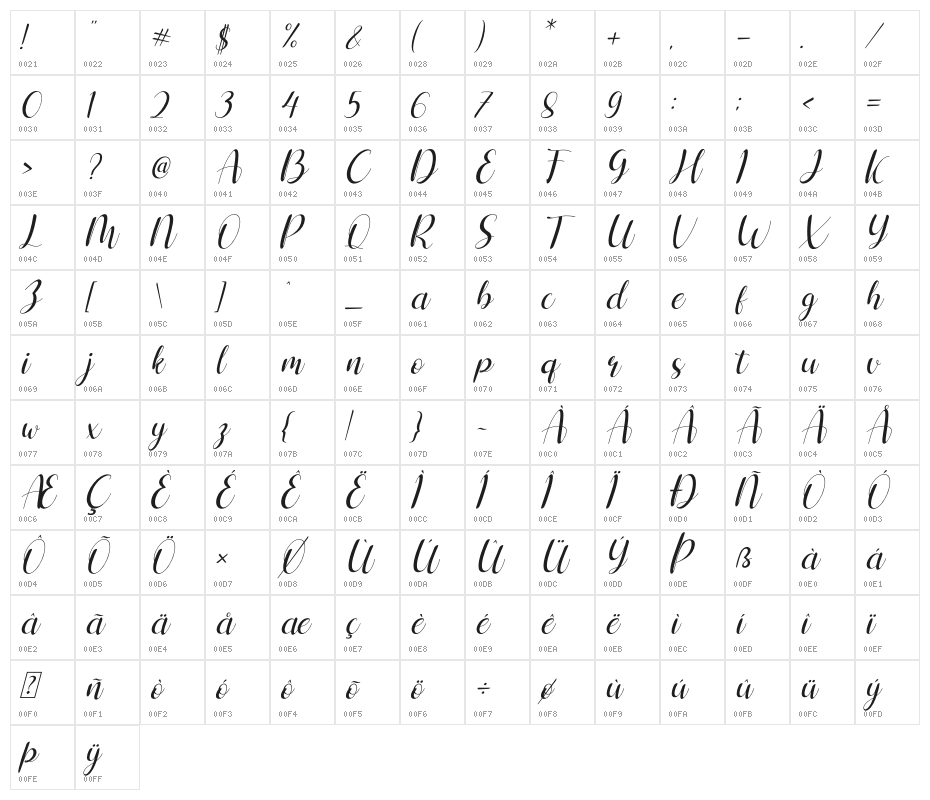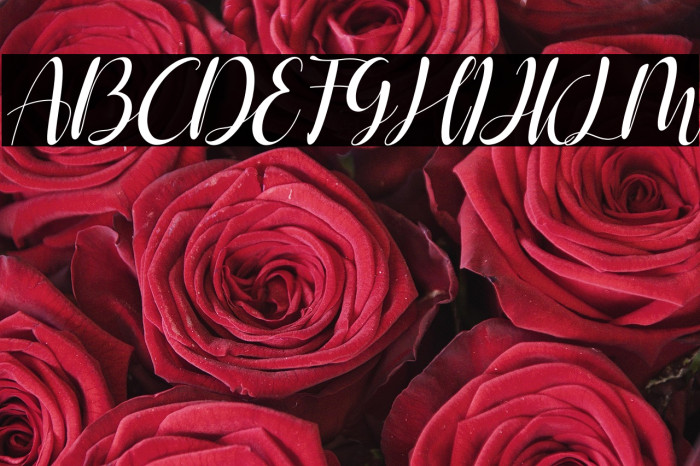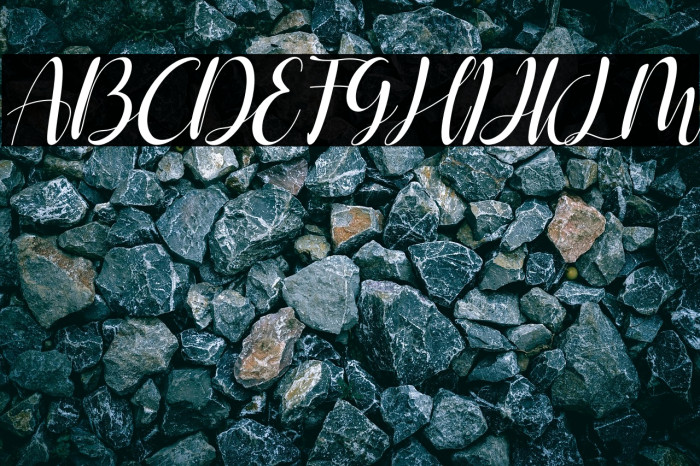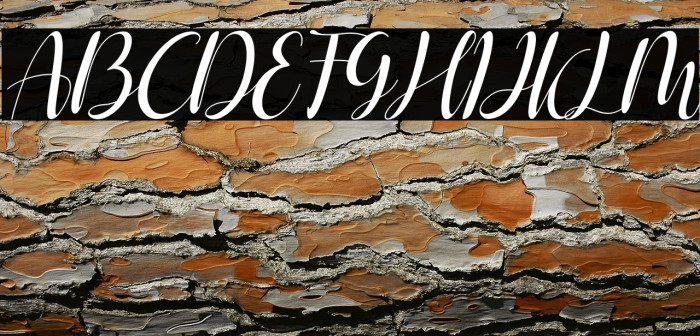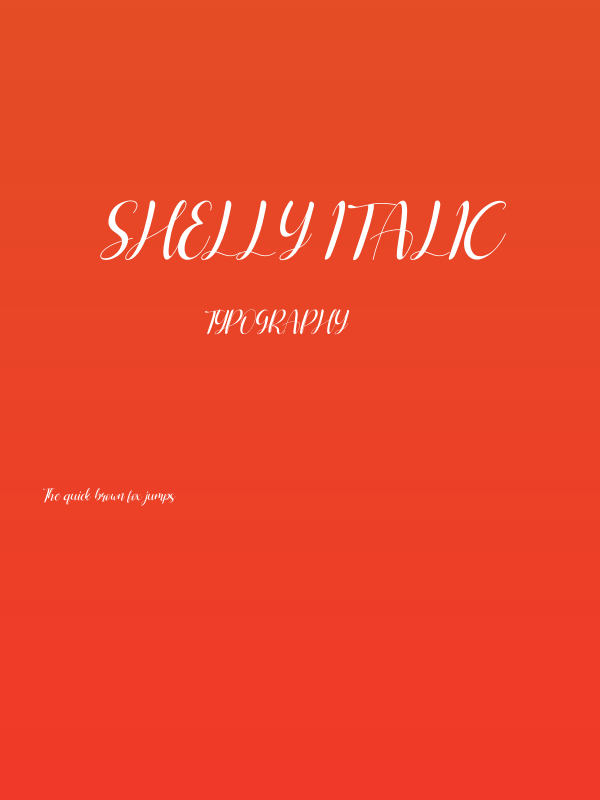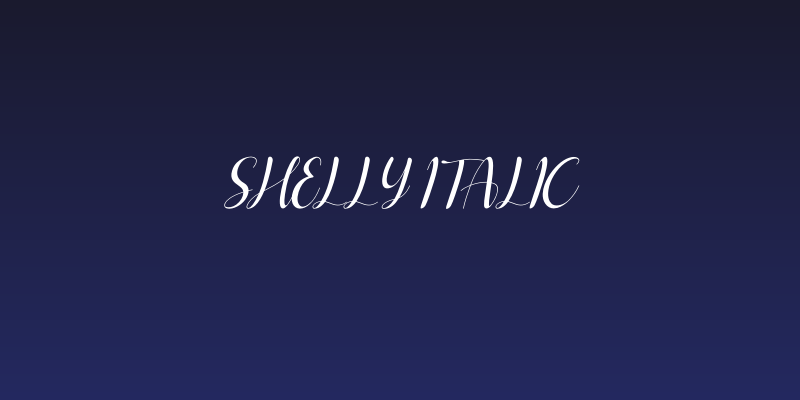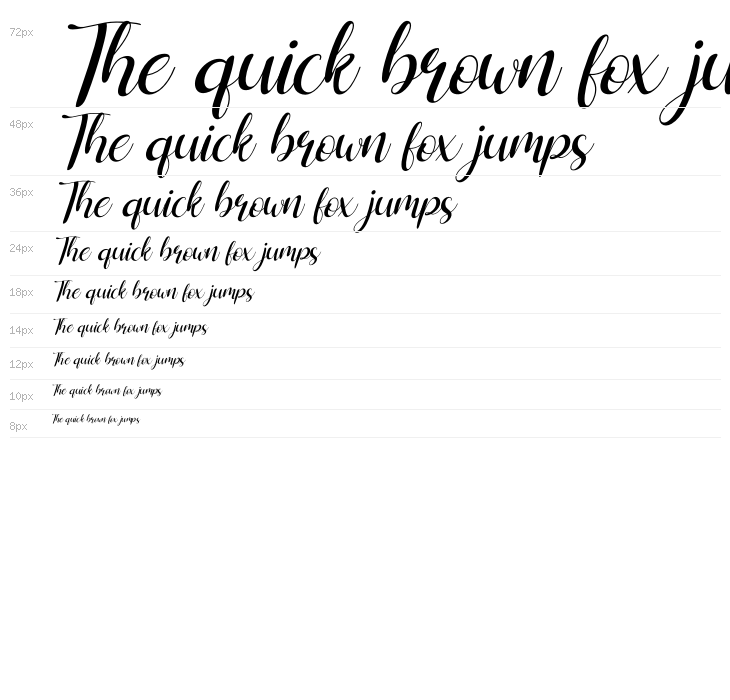
Shelly Italic Font
Shelly Italic Description
This elegant script font features flowing, cursive letters with a distinct italic slant, giving it a sophisticated and graceful appearance. The strokes are smooth and connected, creating a sense of fluidity and movement. The uppercase letters are tall and slender, while the lowercase letters maintain a consistent height, enhancing readability. The numerals and special characters are designed to complement the overall style, with similar curves and flourishes. This font exudes a sense of elegance and charm, making it ideal for formal invitations, branding, and decorative purposes.
| Overall Style | Elegant, Decorative |
| Use Case | Headlines, Invitations, Logos |
| Proposed Projects | Ideal for wedding invitations, elegant branding, greeting cards, and decorative signage. |